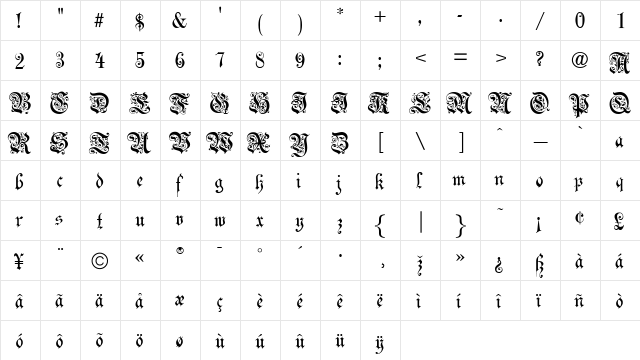
CelebrationTextFancy Regular Font Preview
CelebrationTextFancy Regular
CelebrationTextFancy Regular Font Details
| Foundry | Digitized by Dan X. Solo. Software \ by Dover Publications, Inc |
Design Context for CelebrationTextFancy Typeface
CelebrationTextFancy is a composed and adaptable typeface that performs quietly and consistently across a wide range of design contexts.